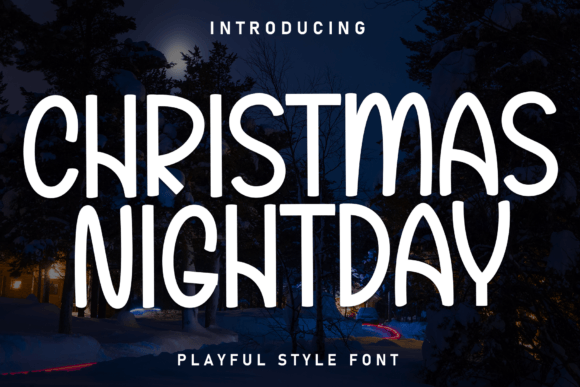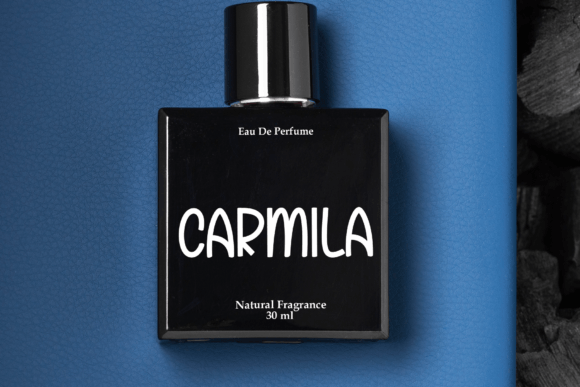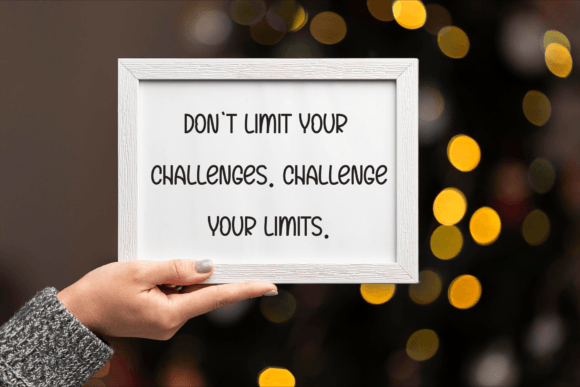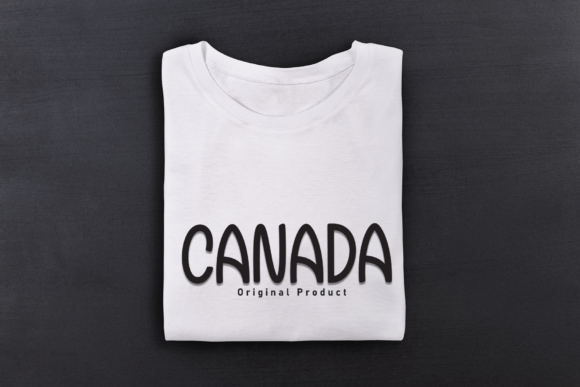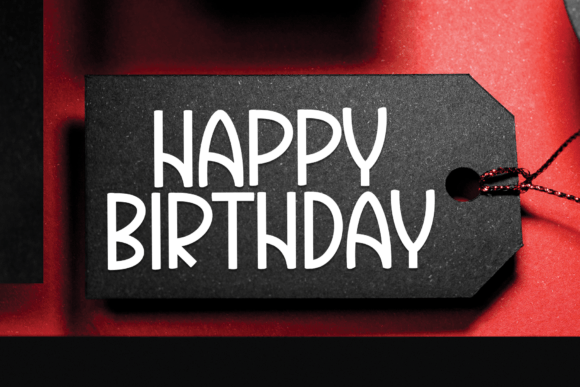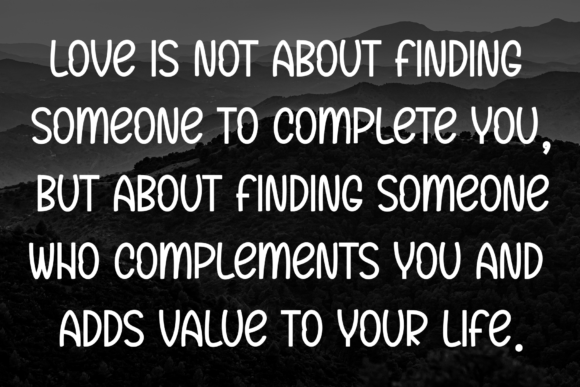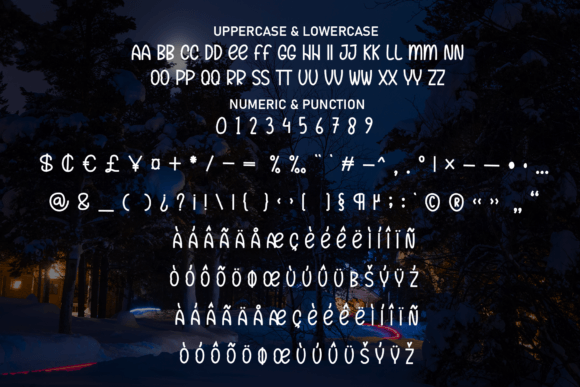
Get into the Holiday Spirit with the Christmas Nightday Font
As the snowflakes start to fall and the twinkling lights go up, you can feel the magic of the holiday season in the air. And what’s more magical than the perfect font to match the festive atmosphere? For designers, finding the right font can make all the difference in creating a memorable and inviting design. That’s where the Christmas Nightday Font comes in – a charming, handwritten font that’s sure to bring a smile to anyone’s face.
With its cozy and playful style, the Christmas Nightday Font is the perfect addition to any holiday project. Whether you’re creating holiday cards, decorations, or social media graphics, this font is sure to add a touch of warmth and personality to your design. As a designer, you know that the right font can make all the difference in conveying your message and capturing the essence of the holiday season. The Christmas Nightday Font is a valuable asset to have in your design arsenal, and we’re excited to share its secrets with you.
Christmas Nightday Font Key Features
- Font Family: Christmas Nightday Font is a unique and festive font designed for holiday seasons, available in various weights and styles.
- Character Count: The font contains over 900 glyphs, including uppercase and lowercase letters, numbers, punctuation, and special characters.
- Unique Characteristics: The font features a distinctive, hand-drawn design with a mix of bold and elegant elements, making it perfect for creating festive and eye-catching designs.
Christmas Nightday Font Review
At first glance, I was immediately drawn to the whimsical ✨ charm of the Christmas Nightday Font. The playful, hand-drawn feel of the letters makes it perfect for any festive project. The font’s use of bold lines and contrasting colors adds to its eye-catching appeal, making it ideal for titles, headings, and other prominent text elements.
However, upon closer inspection, I noticed a few areas where the font could be improved. ⚠️ One of the main limitations is the lack of consistency in the letter spacing, which can make the text appear somewhat uneven at times. Additionally, the font’s use of bold weights can sometimes feel overpowering, making it difficult to read.
- ✨ Playful, hand-drawn feel
- ✨ Eye-catching bold lines and contrasting colors
- ⚠️ Inconsistent letter spacing
- ⚠️ Bold weights can feel overpowering
Overall, the Christmas Nightday Font is a great choice for any project that requires a festive, whimsical feel. While it has its limitations, the font’s unique charm and appeal make it a valuable addition to any designer’s toolkit.
The Christmas Nightday Font is ideal for holiday-themed designs, such as:
– Christmas cards and invitations
– Holiday party decorations and signage
– Seasonal social media posts and graphics
– Custom gift tags and wrapping paper.
To get the most out of the Christmas Nightday Font, try combining it with other festive graphics and colors, such as red and green. Experiment with different font sizes and styles to add visual interest to your designs.
Alex Brush is a elegant script font that is perfect for creating a sophisticated and luxurious atmosphere. It is ideal for high-end branding, luxury packaging, and other premium designs. Compared to Christmas Nightday Font, Alex Brush has a more refined and polished feel, making it suitable for more corporate and professional designs.